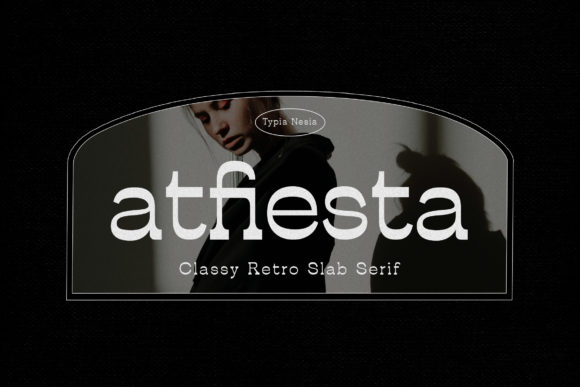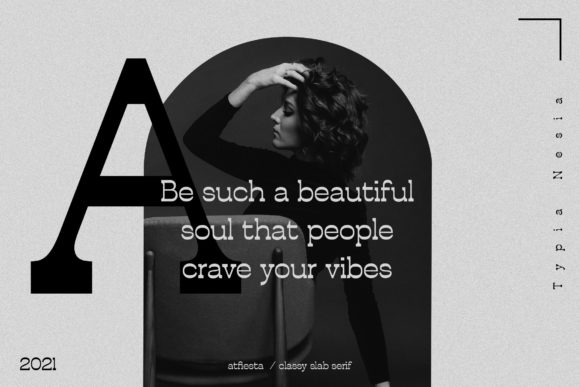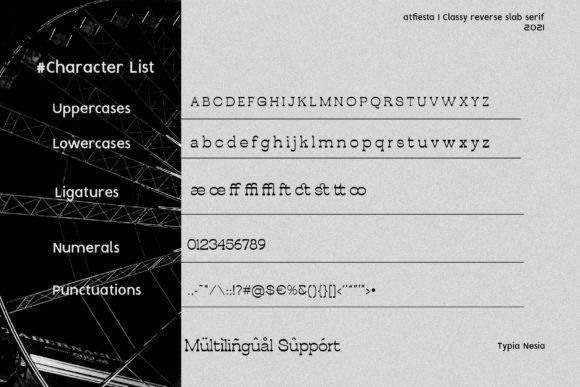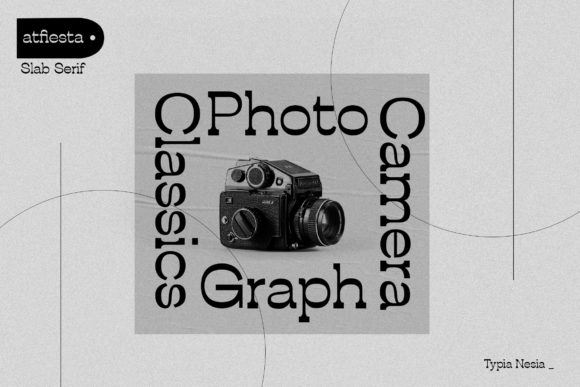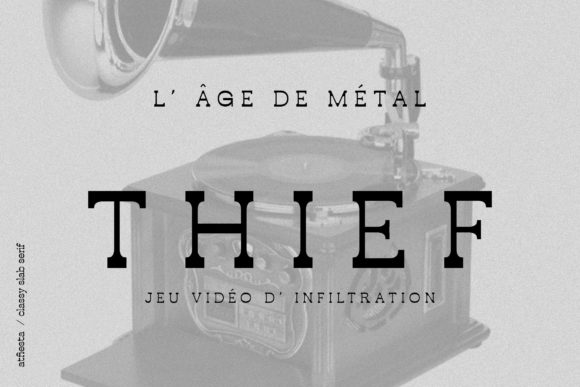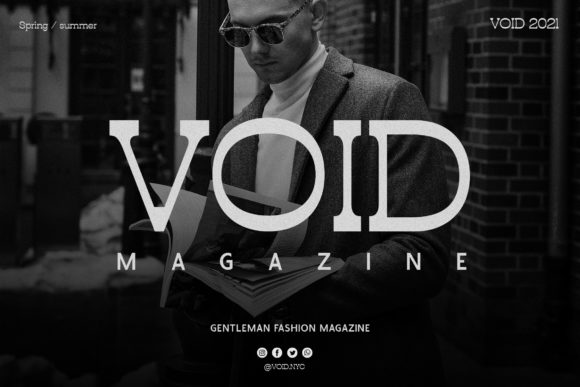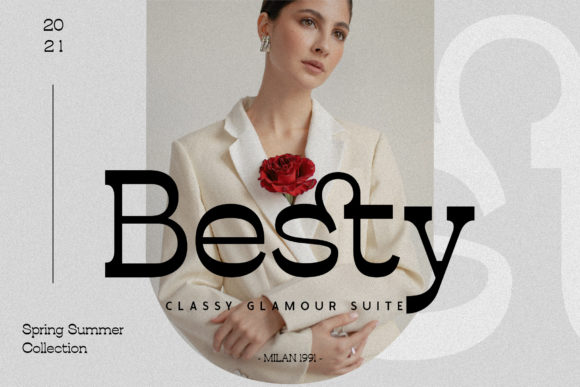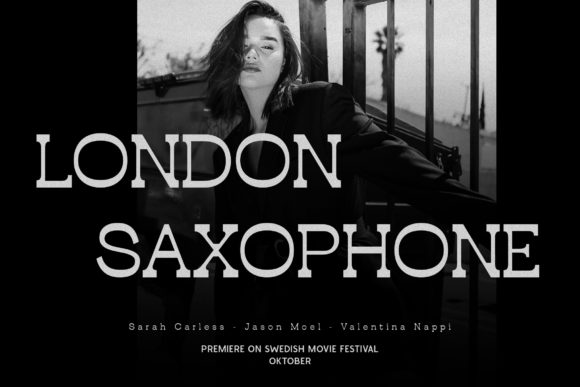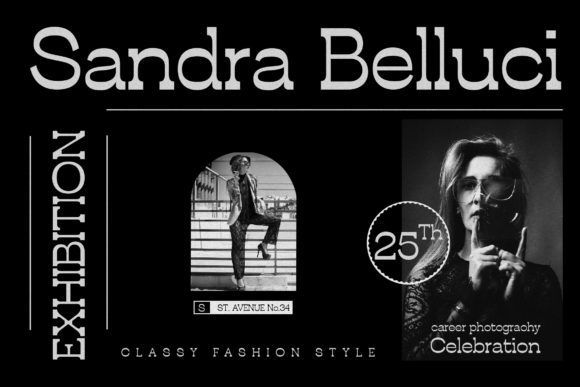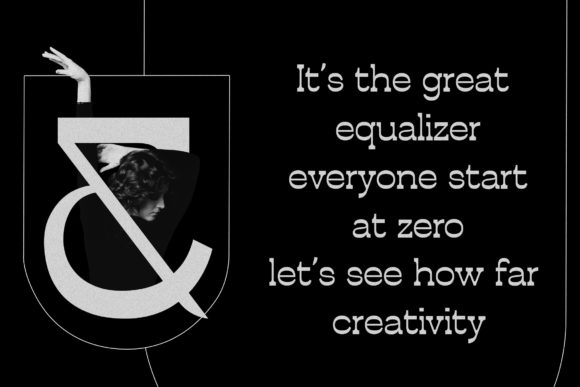
Atfiesta Font
ATFIESTA FONT SPECIMEN
Atfiesta is a cool, classy, retro styled slab serif font. Whatever the topic, this font will be a wonderful asset to your font library, as it has the potential to enhance any creation.